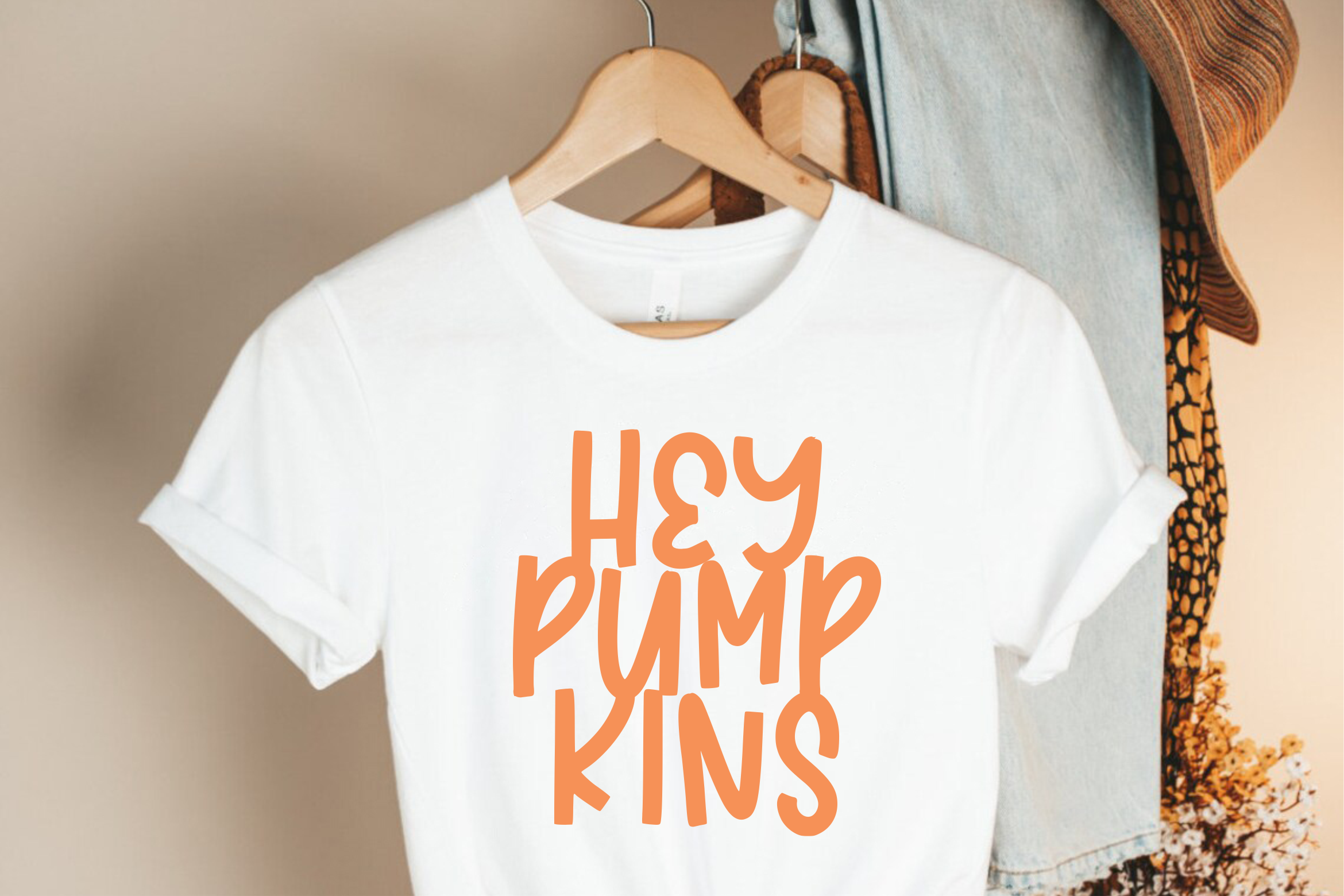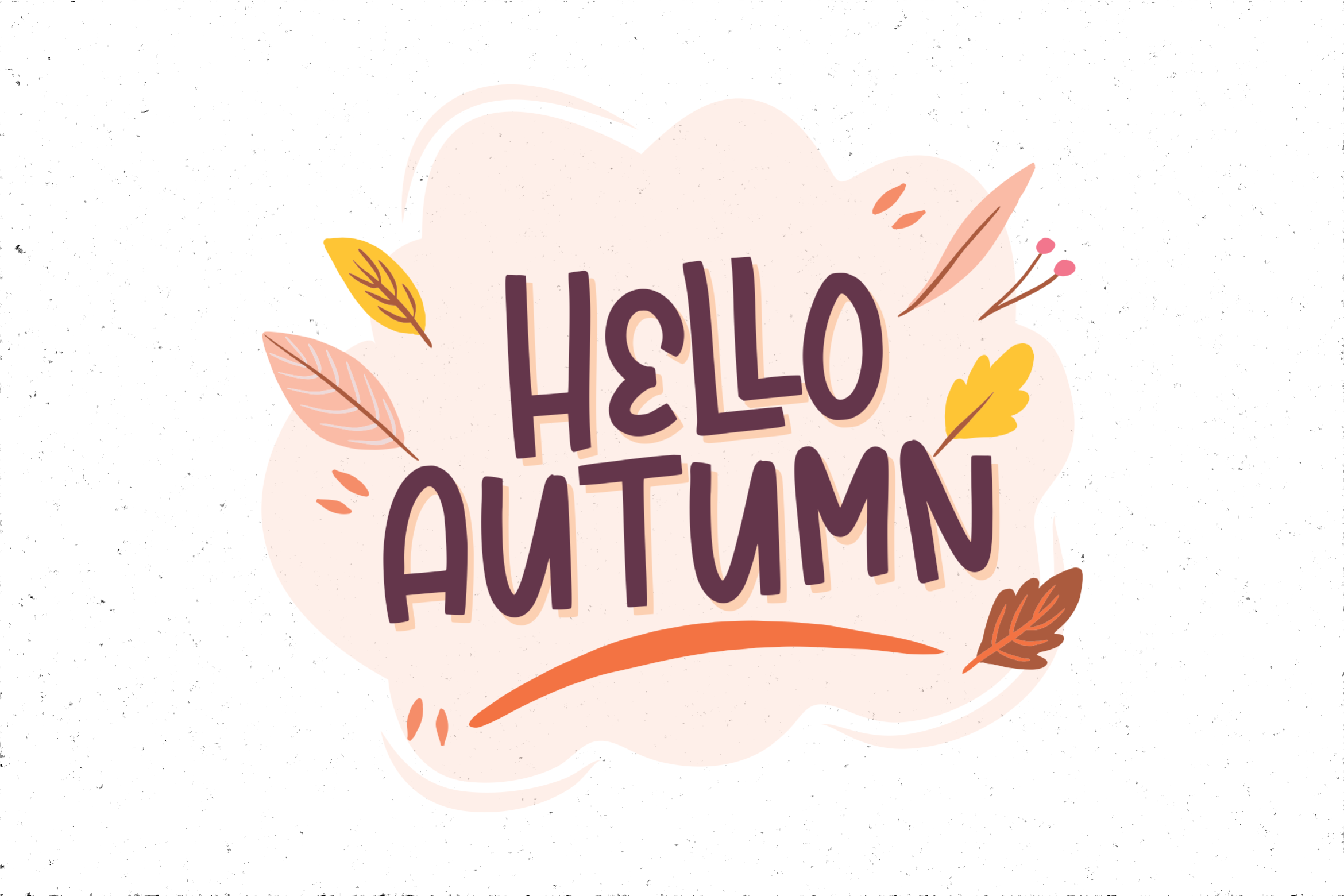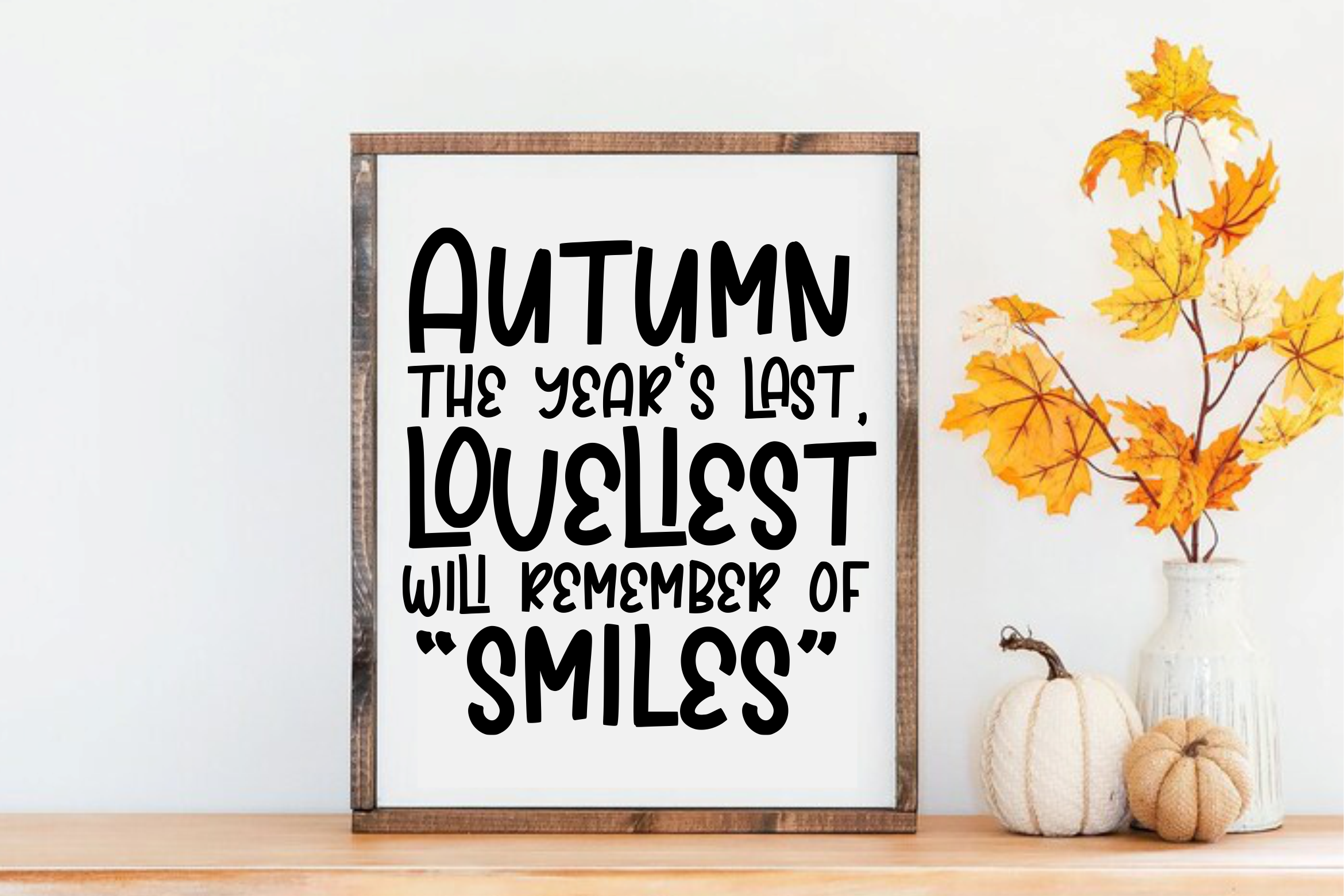
Better Autumn Font
Better Autumn Display Font
This is a clean display font. Magic Bread is perfect for product packaging, branding project, magazine covers, social media, wedding, or just used to express words above the background.